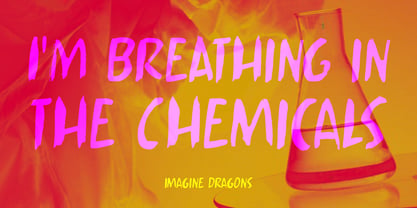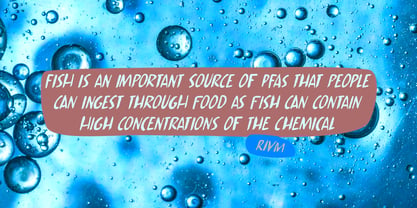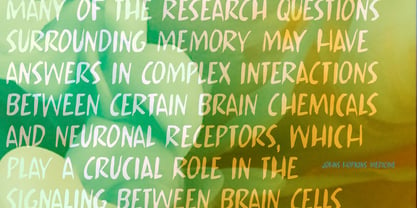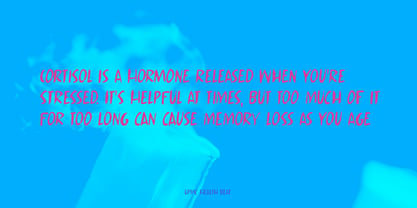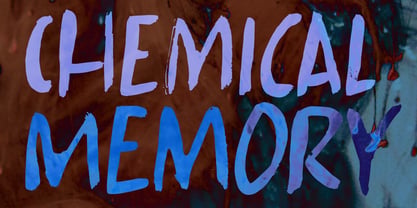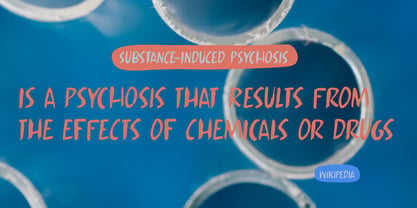
Chemical Memory Pro
by Hanoded
The Chemical Memory Pro Font Family was designed by David Kerkhoff and published by Hanoded. Chemical Memory Pro contains 2 styles and family package options. More about this family
I have always found it quite interesting that the stuff that makes us who we are for a large part comes from chemicals. The average 70 kg adult human body contains around 60 chemical elements, of which 29 are thought to play an active role in human life and health. Chemicals in our brain, like serotonin, dopamine, acetylcholine and glutamate, control many functions and affect our mood, health and motor skills. We think we’re in control, but that may not entirely be the case!
You, however, can control which font you like for your project. I suggest Chemical Memory, as it is a rather unique font, made with a brush and Chinese ink. Other than that, no chemical were added and the ink I used is natural. Chemical Memory comes with extensive language support and a set of alternates for the lower case letters.
About Hanoded
Hanoded is run by Dutchman David Kerkhoff. His fonts are a mishmash of styles, as he just creates whatever pops into his head. You will find a lot of brush fonts in his collection, as his favourite tools are brushes and Chinese ink, with cartoon style fonts and script fonts complementing his repertoire. Aside from making fonts, David occasionally guides tours in far-flung places, renovates his '30's house and tries reasoning with his wife and (teenage) kids. Not an easy task!